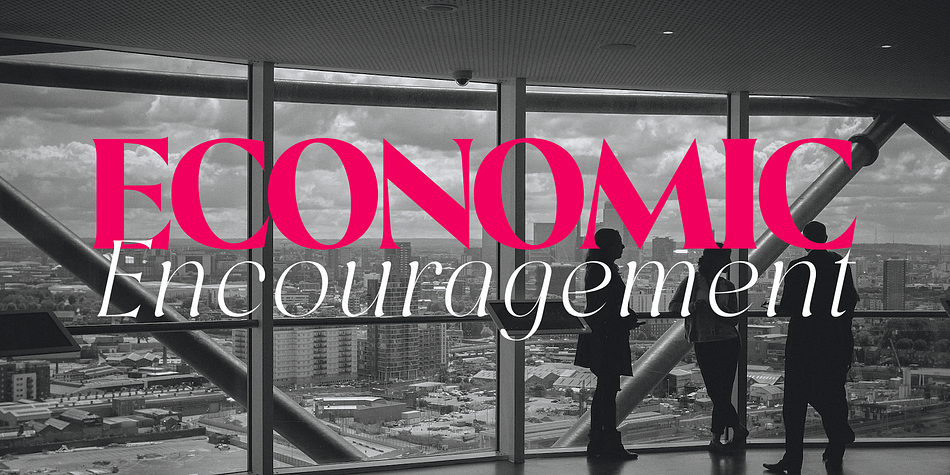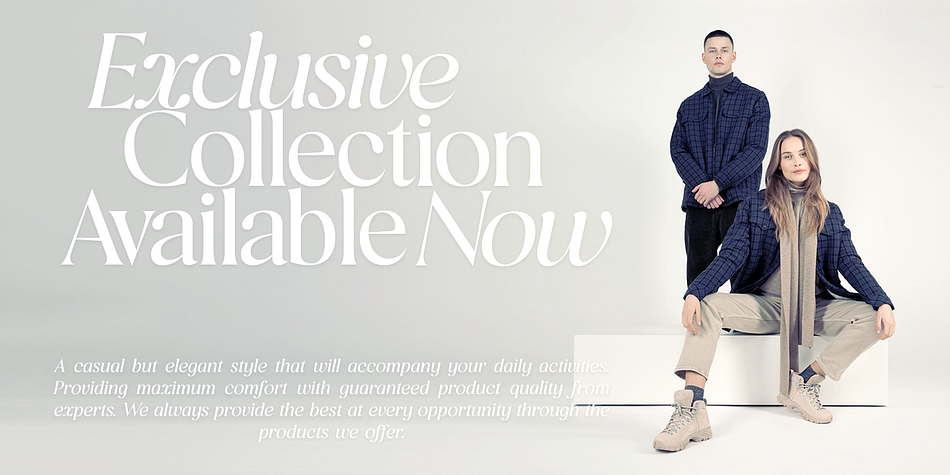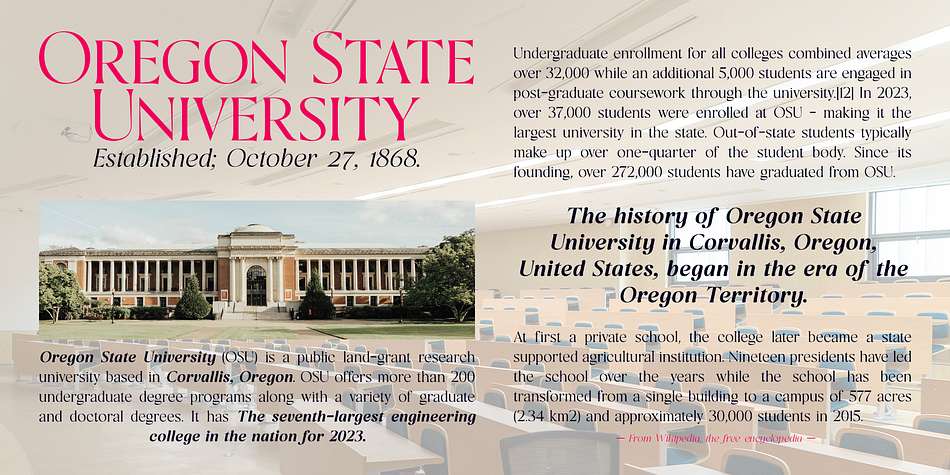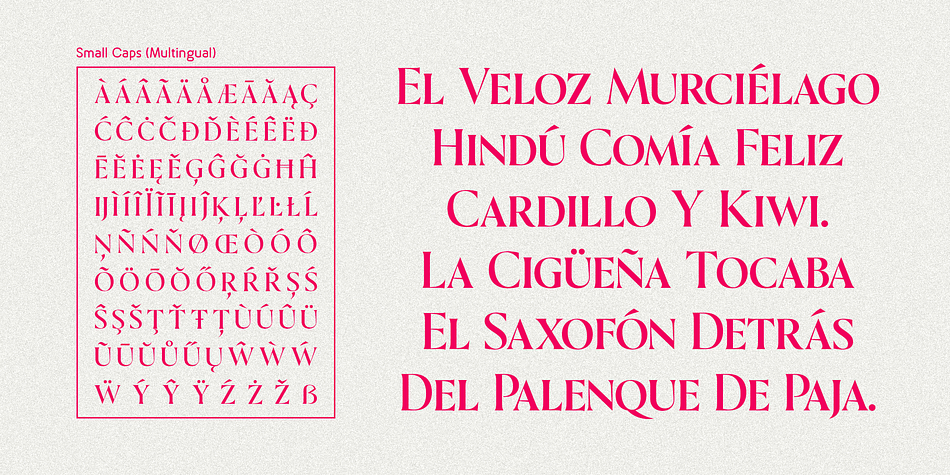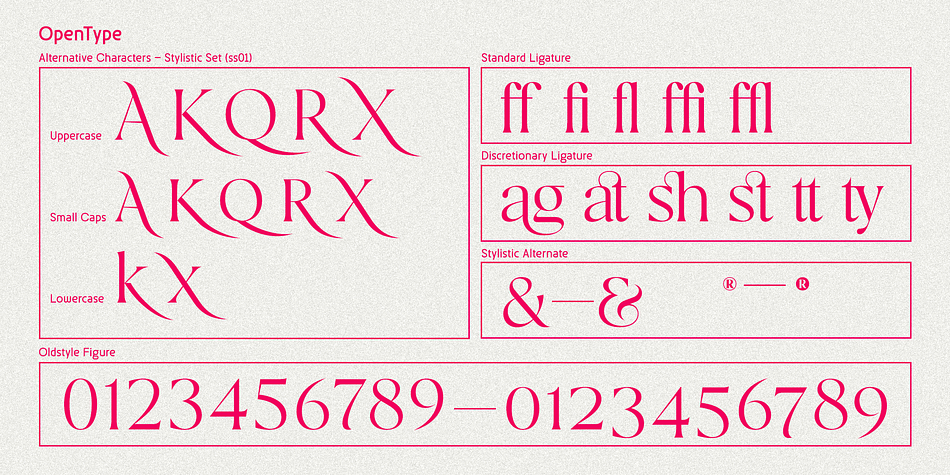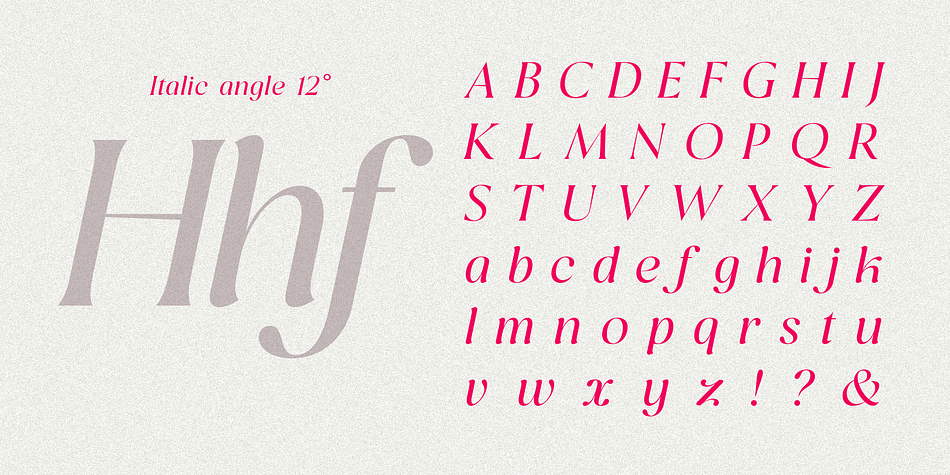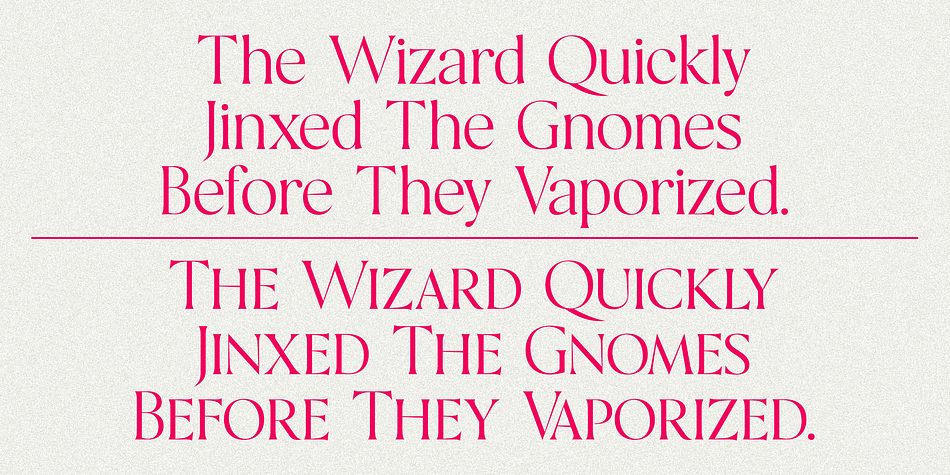
Gildan
Gildan is a serif font family. This typeface has fourteen styles and was published by Sign Studio.
Gildan typefaces are available in 7 measured weights. Inspired by a charming, classic style. Equipped with several OpenType features (plain version); Discretionary Ligatures, Small Caps, Stylistic Sets, Oldstyle Figures. We made the italic version simpler, but with controlled weight on each side. Everything is designed to complement and support the design.